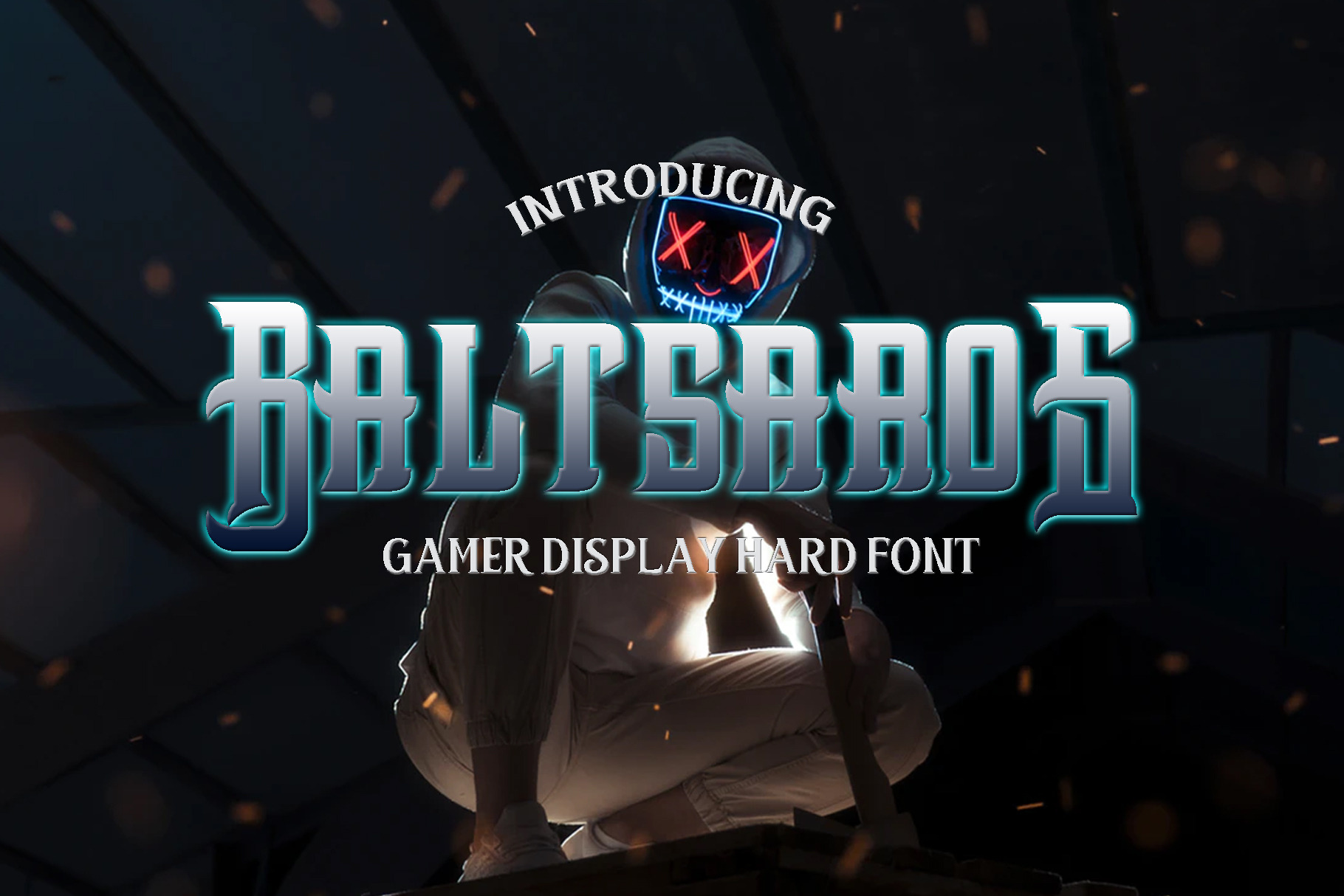
BaltsaroS -Heavy Metal black Font
Baltsaroz is a character font, Strong, Sharp, Bold, tends to display masculine characters, so it is applied to designs that require this type of font such as paintball design, gaming logo, rock and metal logo bands, t-shirt design, sporty and spirit.
Opentype Feature:
- alternate
- ligature
- international language Font Type: